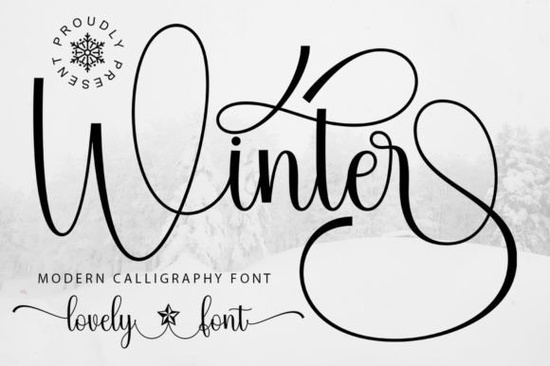
Winter Font is a beautiful handwritten script that brings a sense of warmth and elegance to any design. Whether you're creating holiday cards, wedding invitations, or personalized gifts, this font adds a romantic touch that stands out. Its versatility makes it ideal for both digital and print projects, and the PUA encoding ensures easy access to all the unique glyphs and ligatures.
If you're looking for a font that can enhance your creative work, Winter Font is a great choice. It fits well in the category of script fonts, offering a natural flow that mimics real handwriting. This makes it perfect for those who want to add a personal, artistic flair to their designs. The font's clean lines and soft curves make it easy to read while still maintaining an expressive style.
For designers and crafters, Winter Font can be used in a variety of ways. It works well for headlines, logos, and decorative elements. If you're running a print-on-demand business, this font can help you create eye-catching products that appeal to a wide audience. Small businesses and creative hobbyists will find it especially useful for branding and marketing materials.
How Does Winter Font Compare to Other Script Fonts?
Compared to other script fonts, Winter Font has a more organic feel. It doesn't look overly formal or rigid, which makes it suitable for casual and elegant projects alike. If you're looking for something that feels personal and heartfelt, this font delivers. It’s also different from more traditional cursive styles, giving your work a fresh and modern look.
When choosing a font for a project, it's important to consider the tone and purpose. Winter Font is ideal for themes like winter, romance, and celebration. It pairs well with other fonts that have a similar style, making it easy to create cohesive designs. For example, if you're working on a farmhouse-themed project, you might pair it with a more rustic font like the Farmhouse Handwritten Font.
Best Uses for Winter Font
Winter Font is best used in projects that require a personal or artistic touch. Here are some common applications:
- Greeting cards for holidays or special occasions
- Wedding invitations and signage
- Personalized gift tags and labels
- Logo designs with a handcrafted feel
- Headlines and banners for seasonal promotions
Its flexibility means it can be used in both digital and physical formats. You can apply it to social media posts, website headers, or printed materials without losing its visual appeal. The font’s legibility makes it suitable for a wide range of sizes, from small text to large display fonts.
Whether you're a designer, crafter, or small business owner, Winter Font offers a simple yet effective way to elevate your work. Its elegant style and ease of use make it a valuable addition to any creative toolkit.